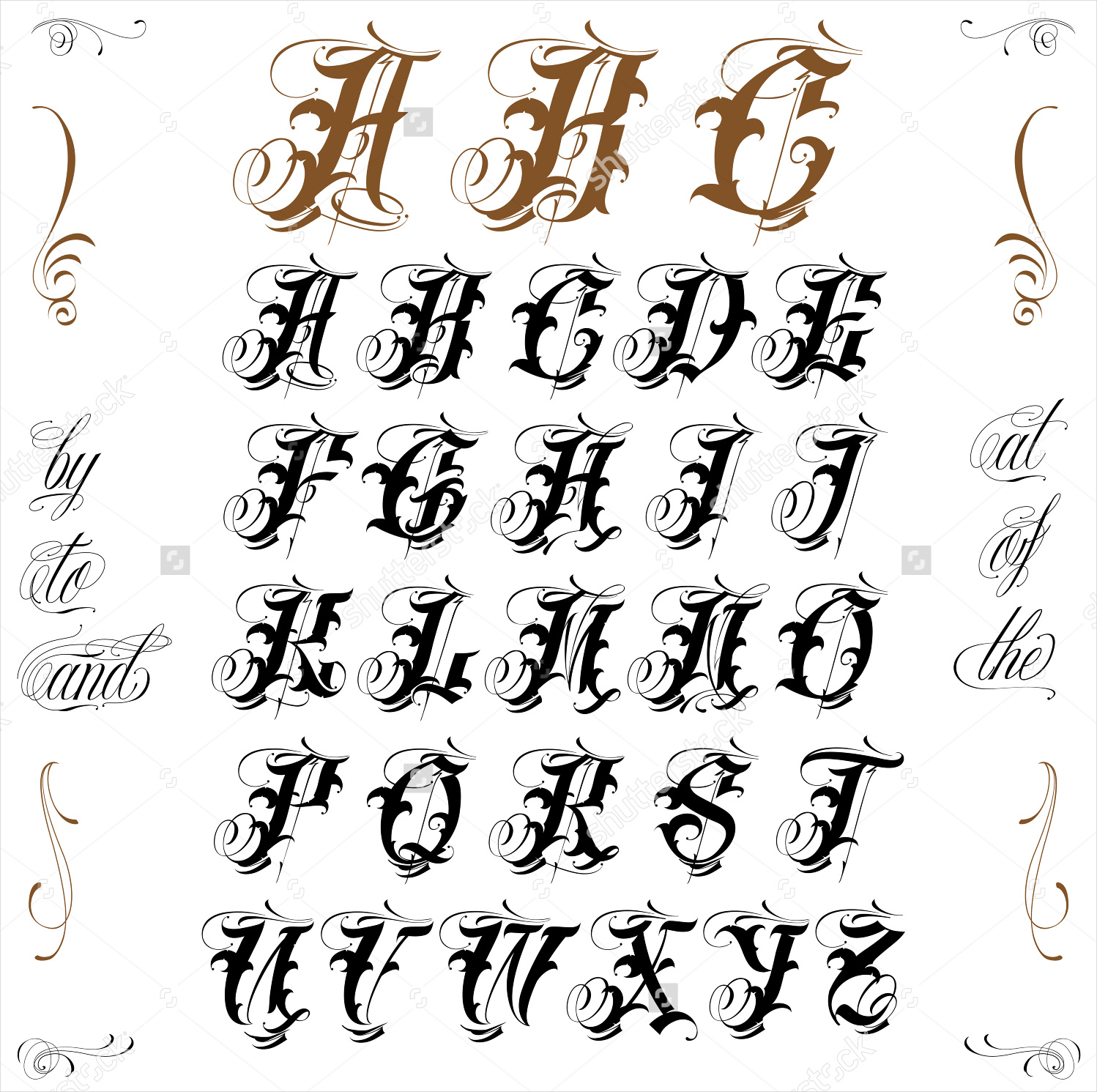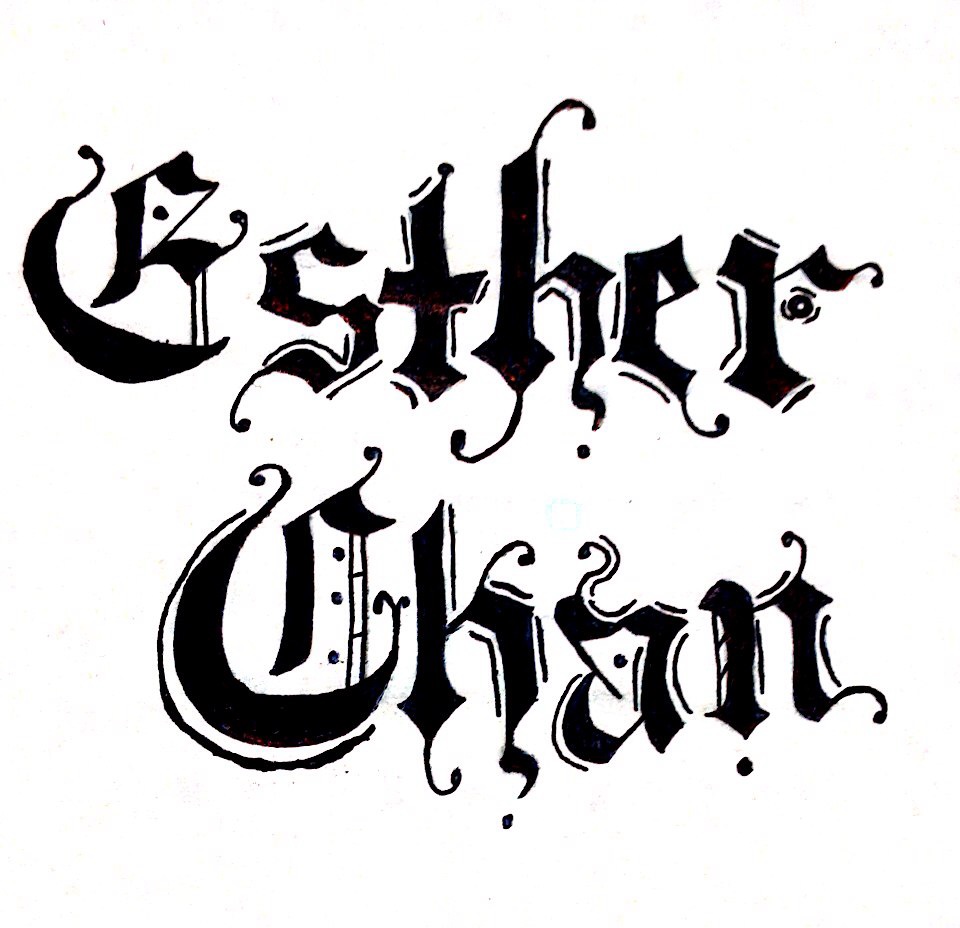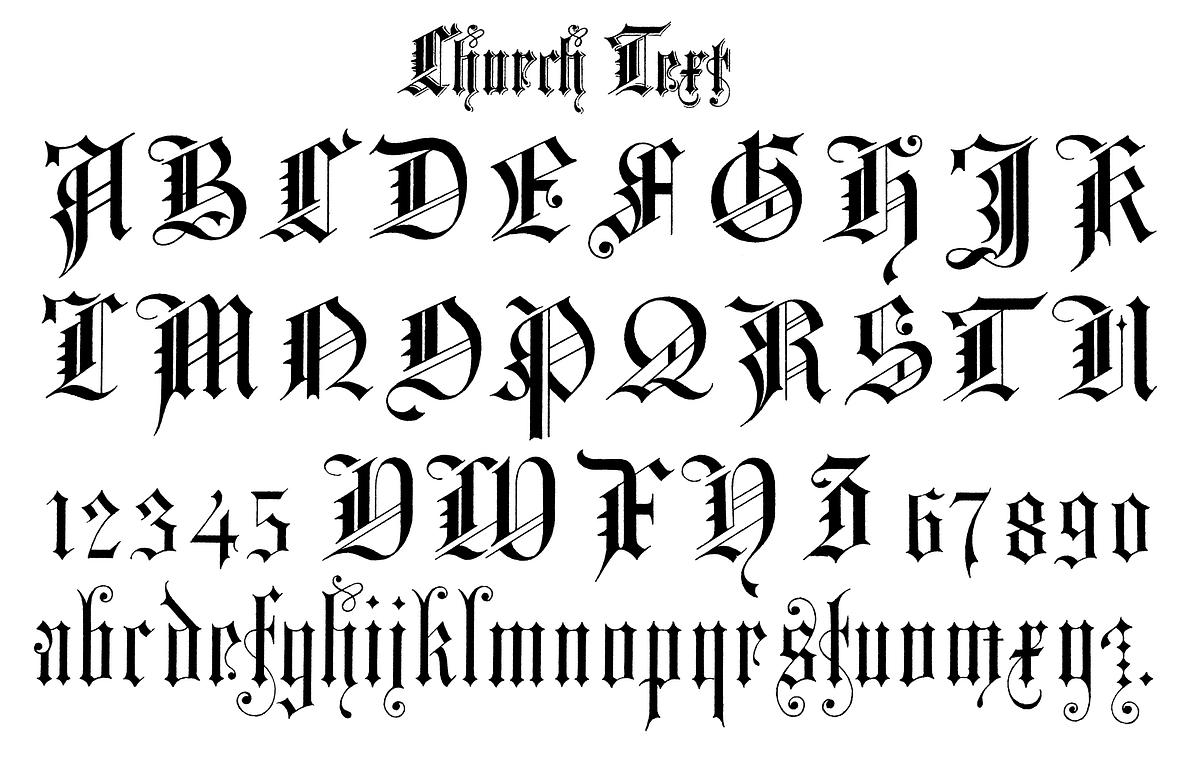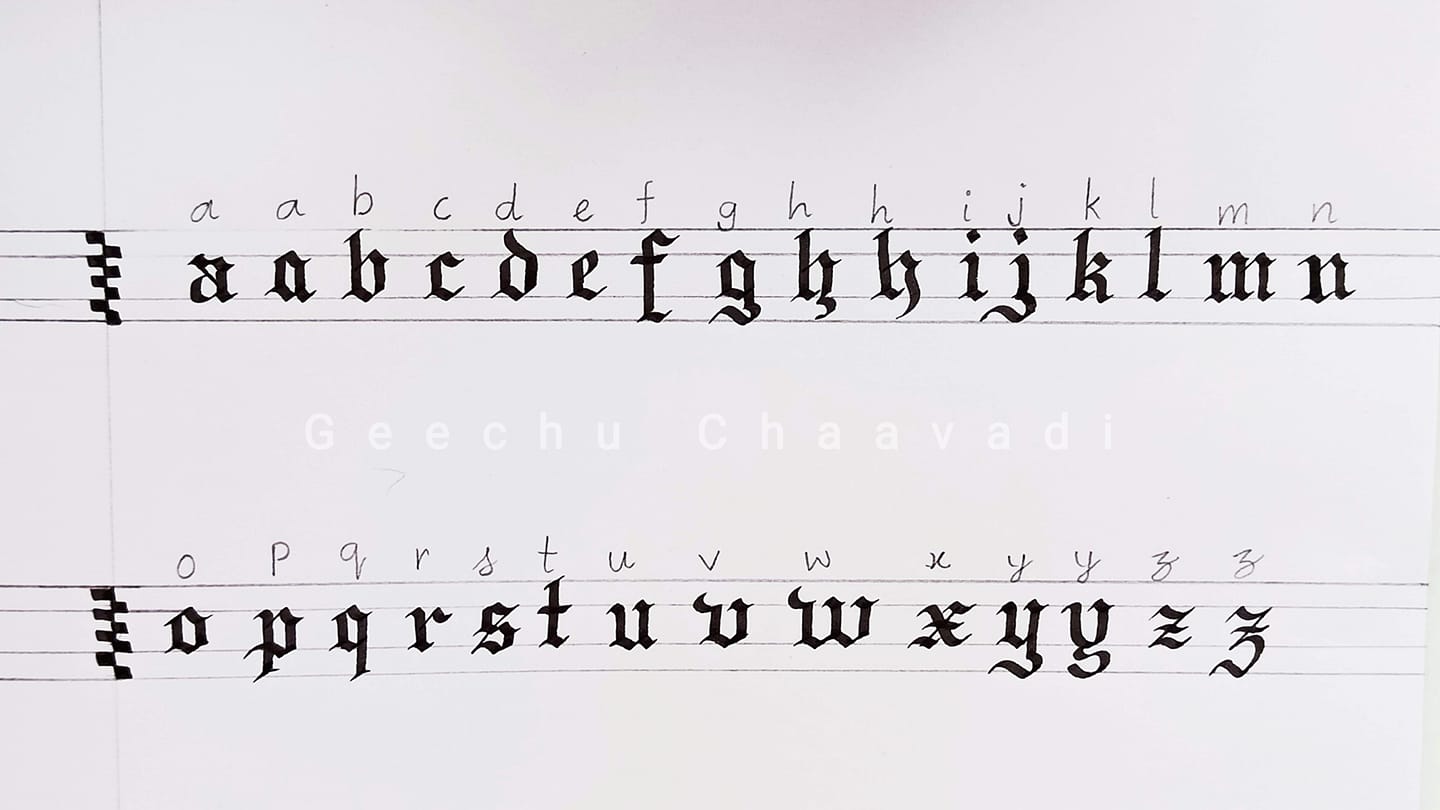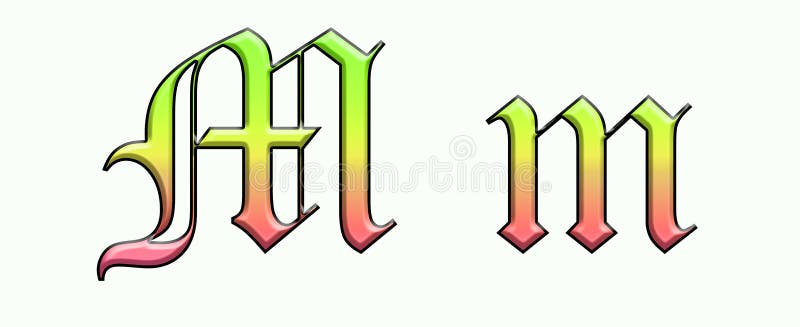
Olde English Regular -. It should be noted that Old English or blackletter has nothing to do with old English language nor the old English language written with blackletter.
It is also known as Blackletter or medieval calligraphy.
Calligraphy old english font. To write these letters with a pencil requires a lot of time pa. Calligraphy - Free Download Over 20000 English Fonts. The Old English also known as blackletter dates back to 1000 years ago when it was used as a script throughout Western Europe.
Various forms of blackletter exist mainly including Textualis the most calligraphic form of blackletter. Category Old English. Just hit the link bel.